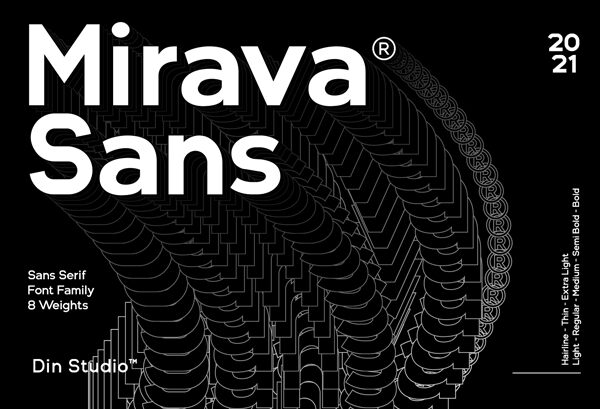
Mirava font is a sans serif typeface designed by Din Studio.
Mirava Sans-A Sans Serif Font Family
If we can give you many options then why not? Mirava San is a package that will delight you. With this family you will get many options to maximize your designs with stylish fonts.